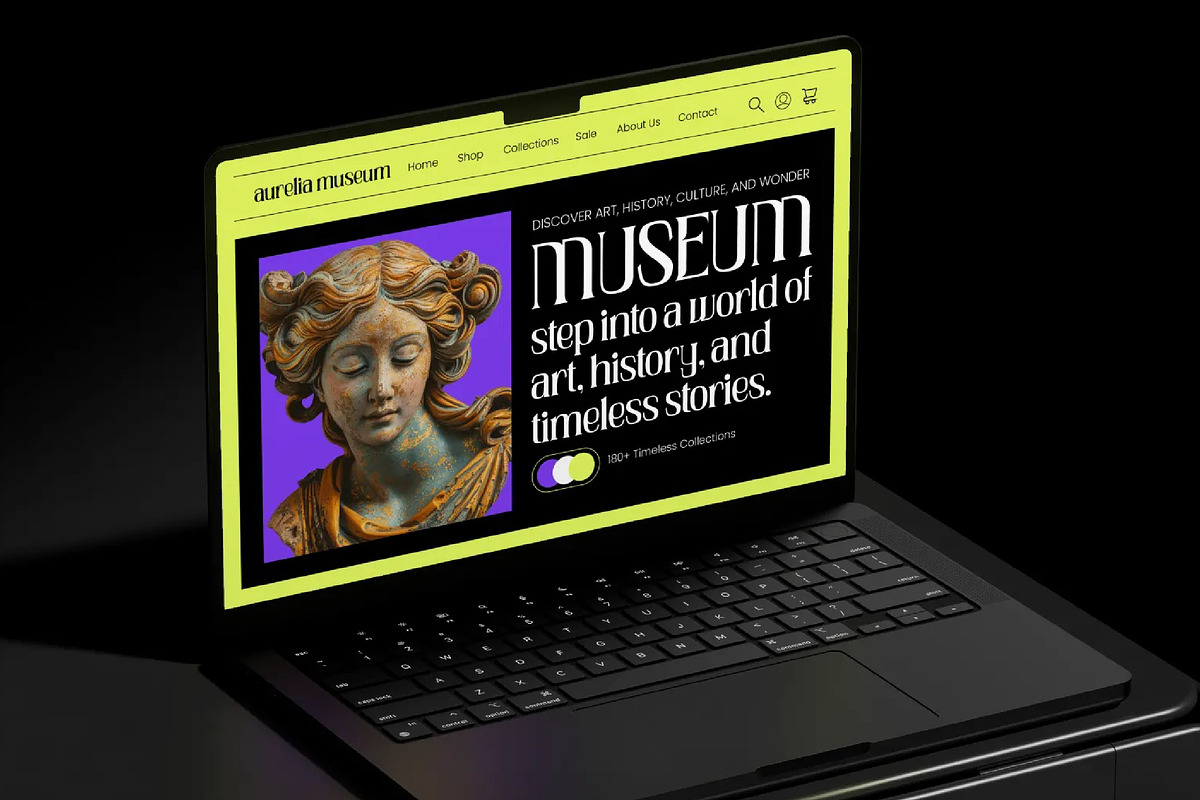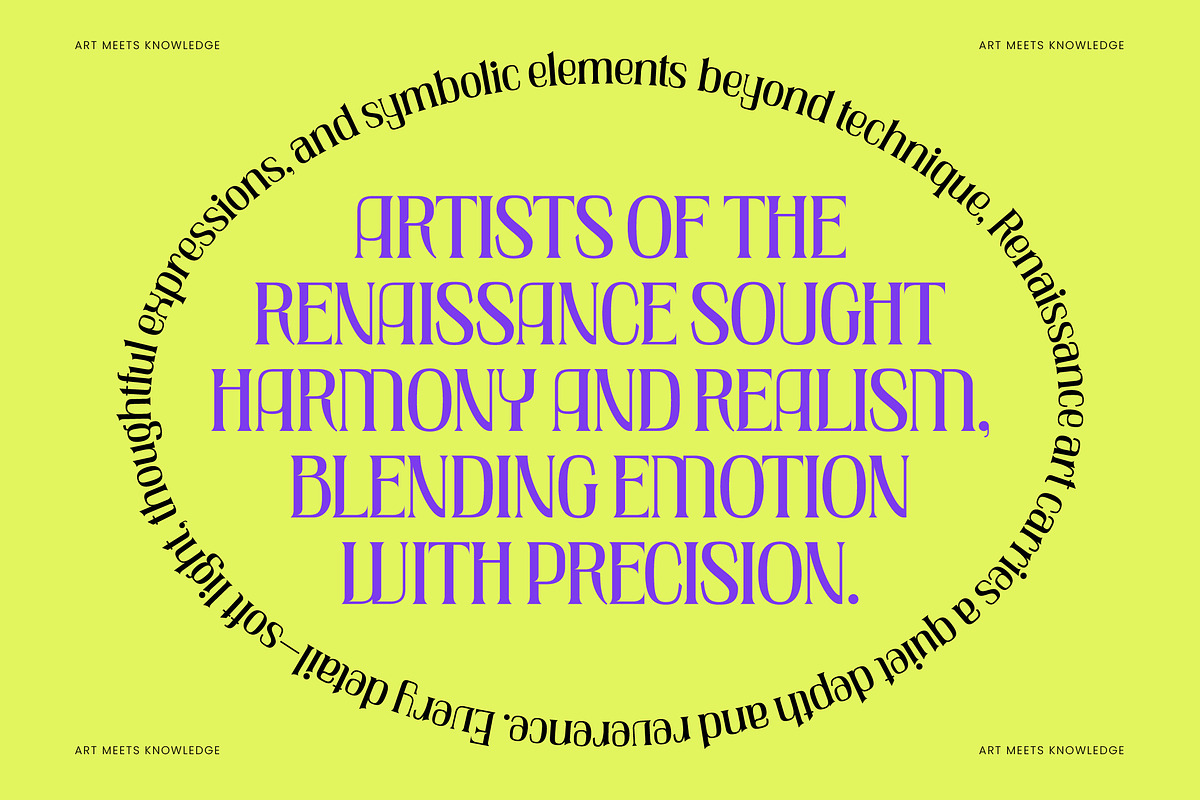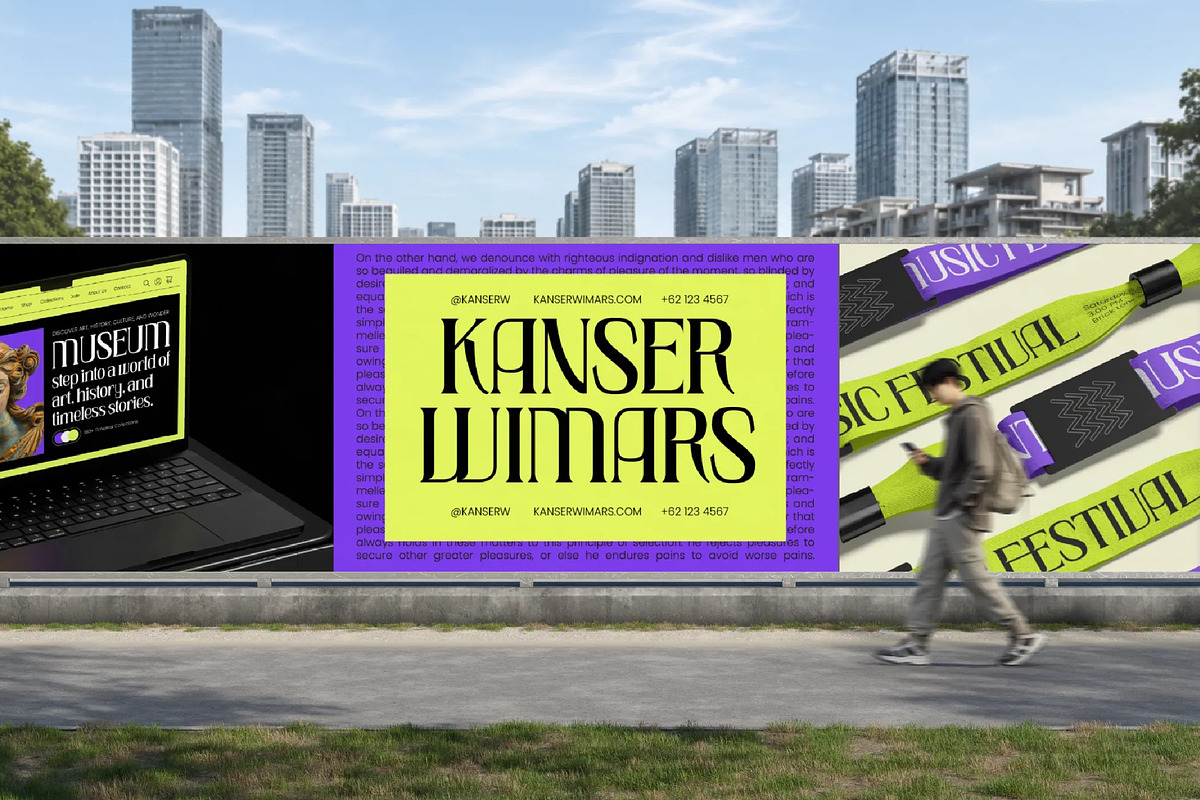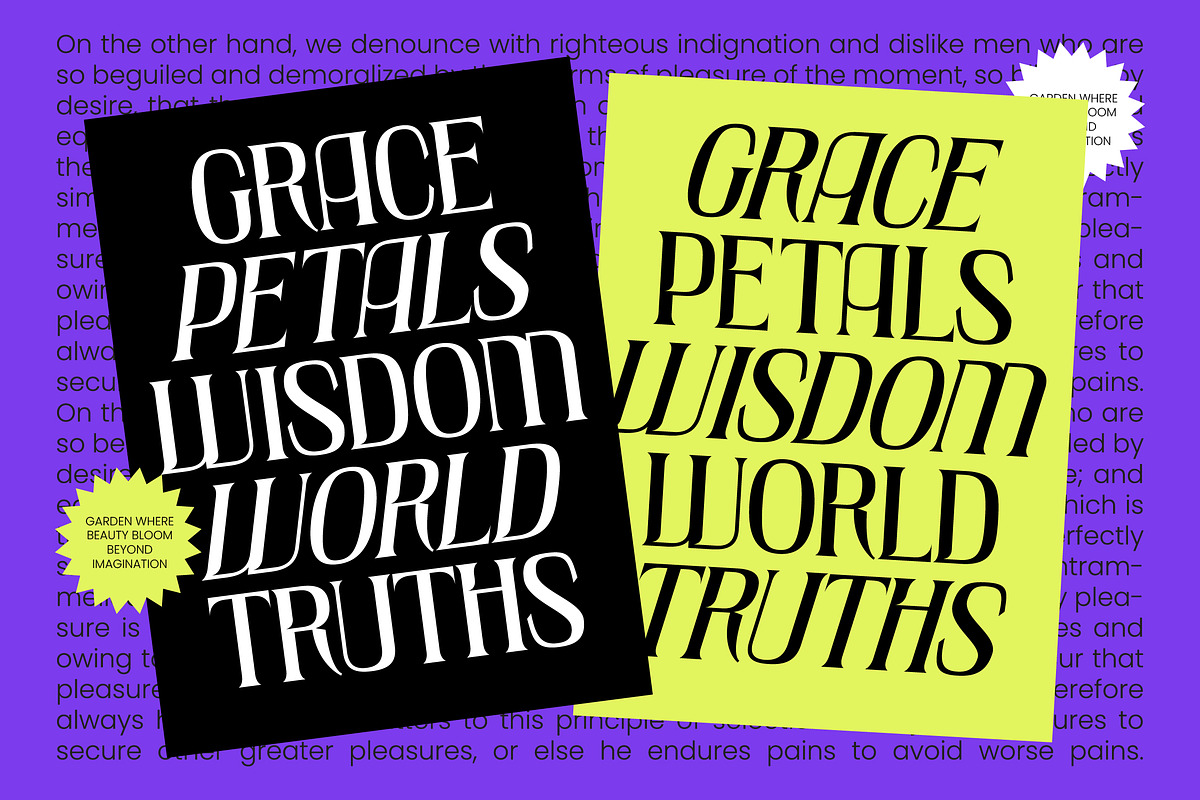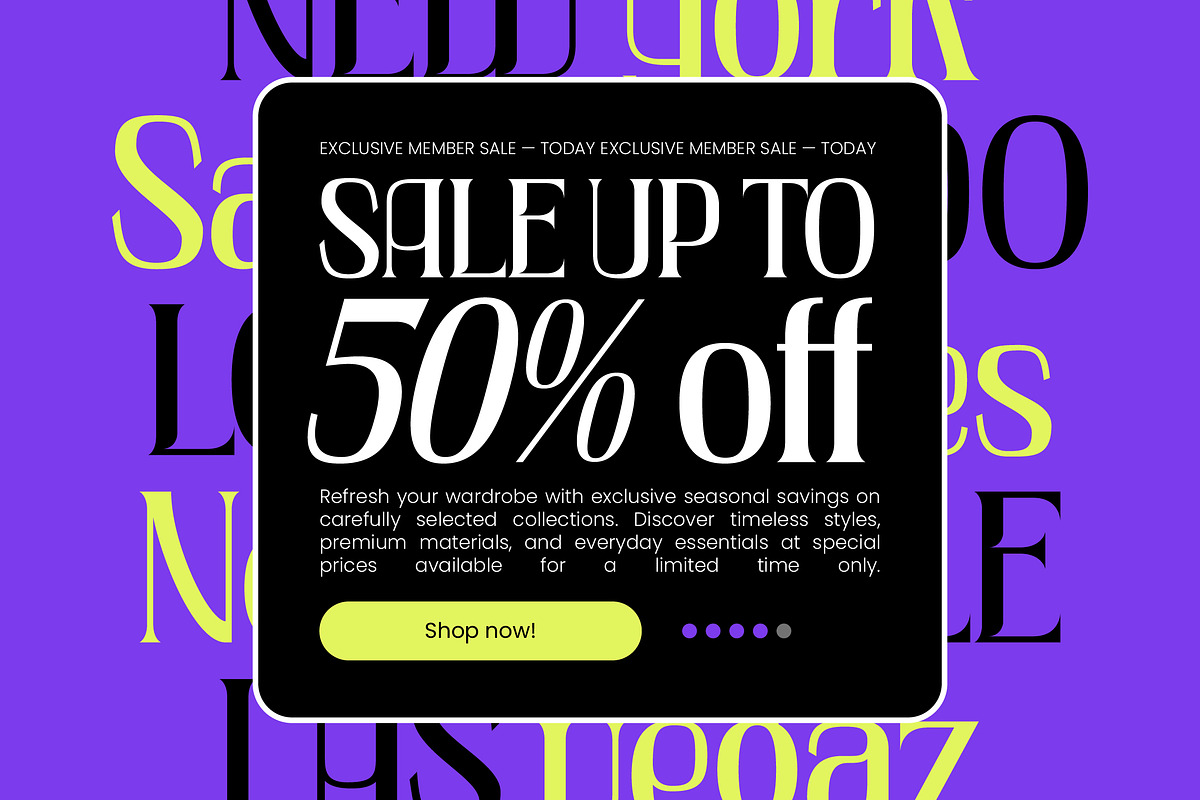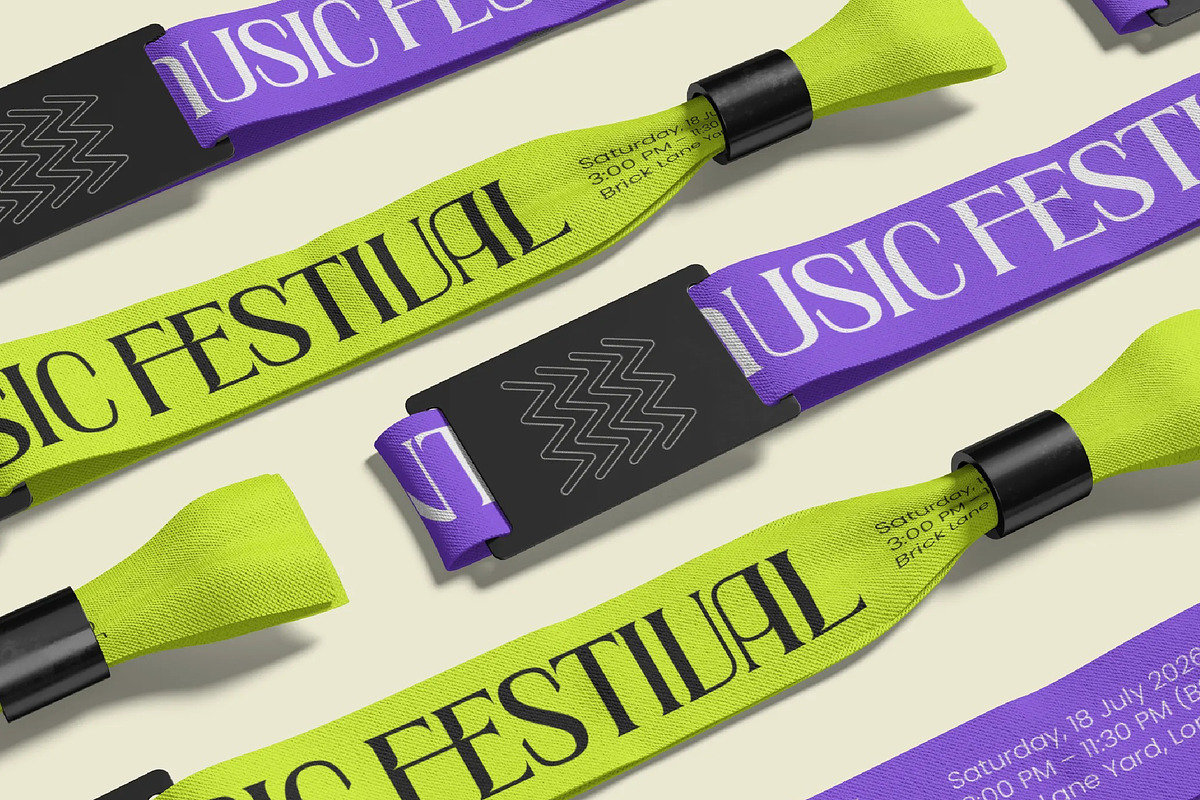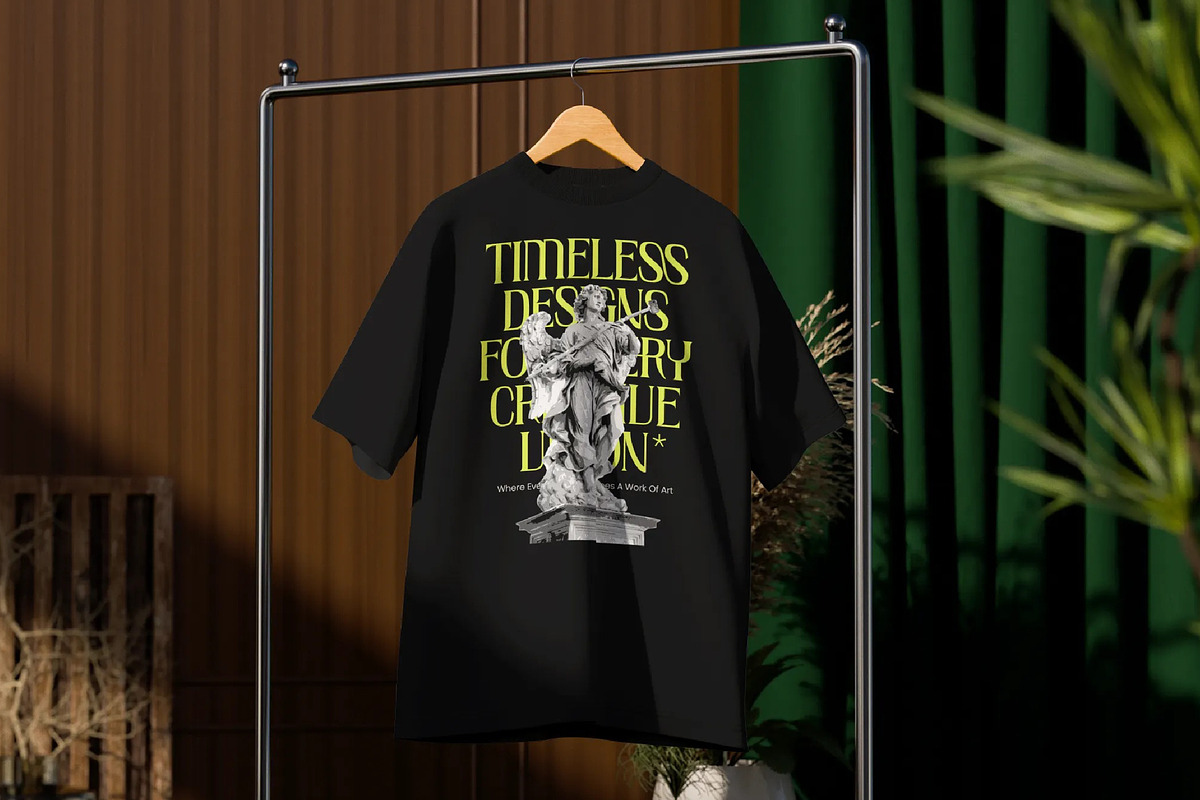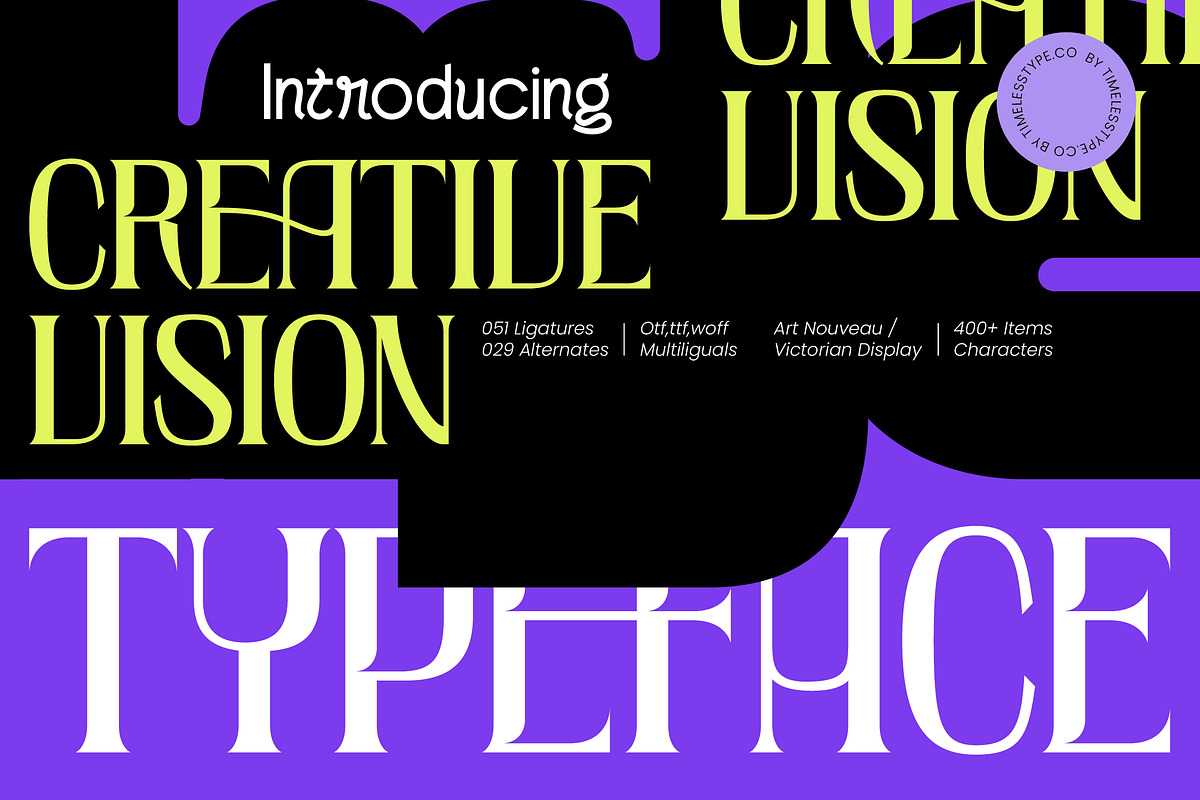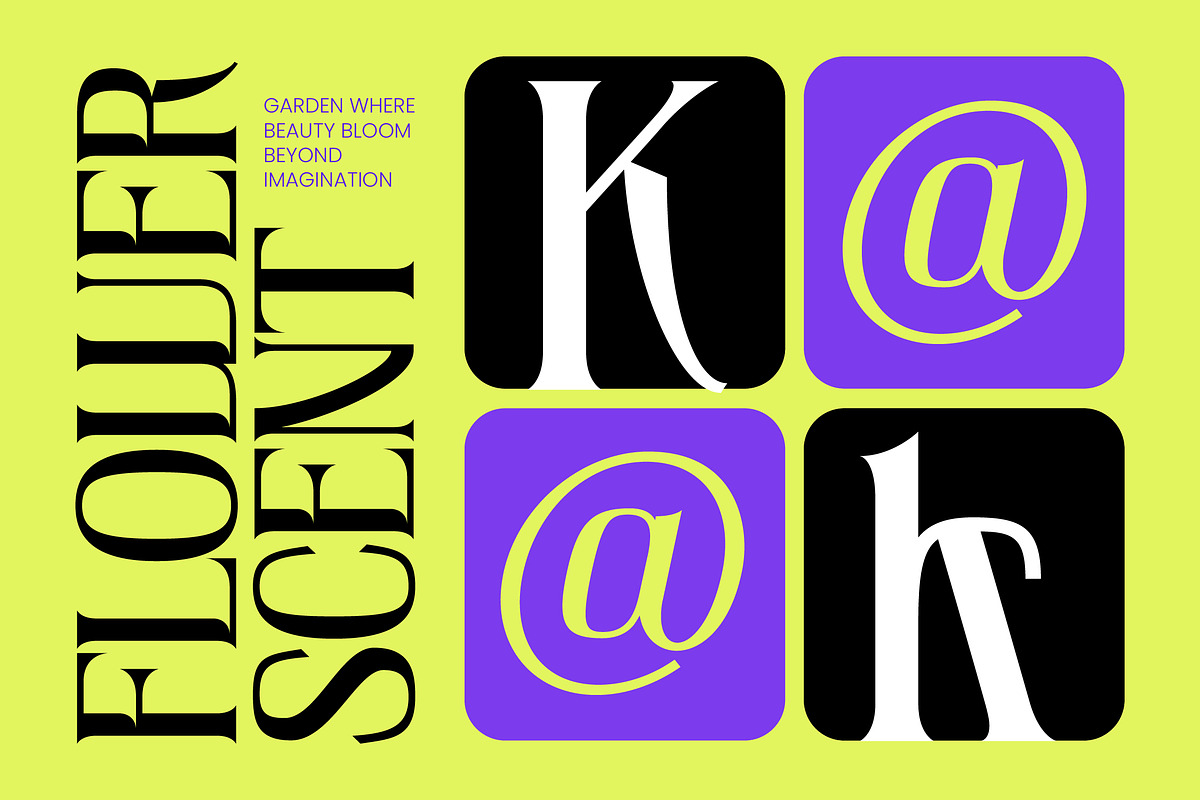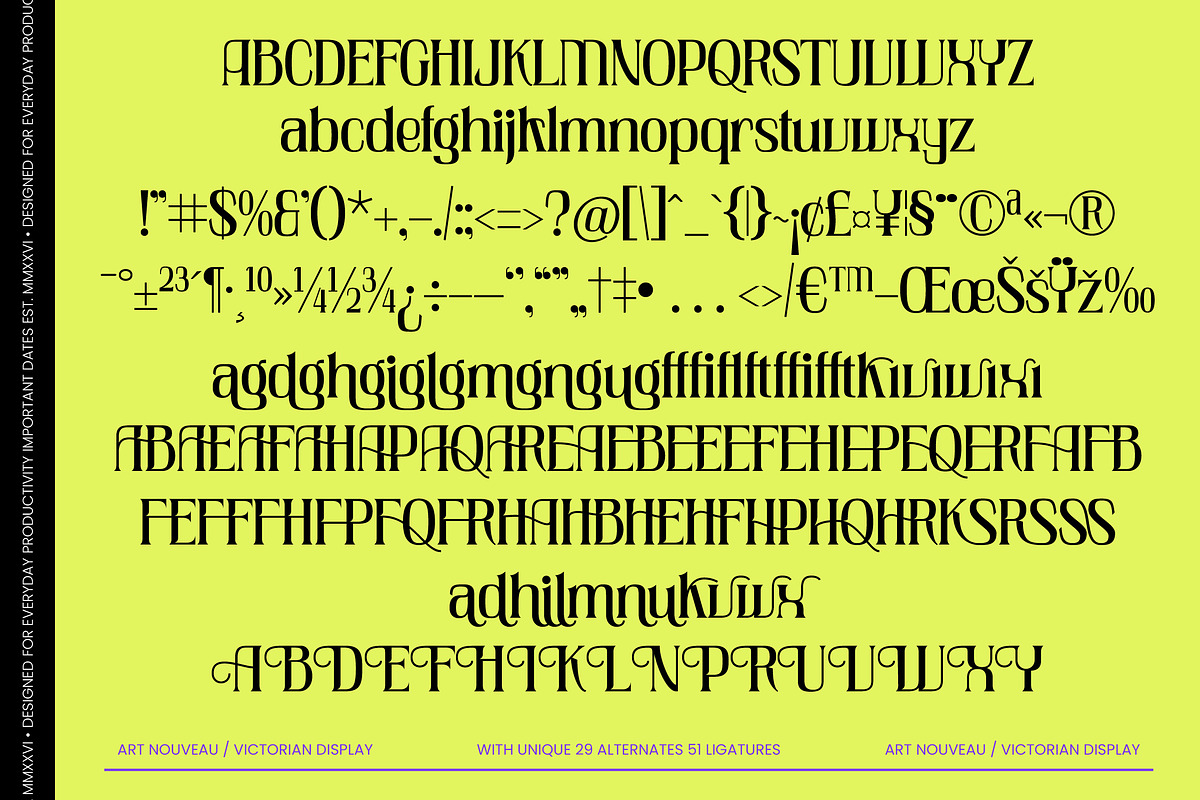
Creative Vision Victorian Display
Creative Vision – Art Nouveau & Victorian Display , Elevate your design identity with a typeface that masterfully bridges the gap between classic elegance and modern sophistication. Creative Vision – Art Nouveau & Victorian Display is a stunning display typeface that draws inspiration from the flowing lines of the Art Nouveau movement and the ornate structure of the Victorian era. Its high-contrast strokes and sharp serifs create a dramatic visual impact, ensuring your headlines command attention with a unique, premium aesthetic.
Experience unparalleled creative freedom with a comprehensive set of typographic features designed for professional impact and customization. With over 400 characters, including 51 unique ligatures and 29 stylistic alternates, Creative Vision – Art Nouveau & Victorian Display allows designers to craft truly bespoke layouts. These intricate details provide the creative flexibility needed to move beyond standard typography, offering a handcrafted feel that is both luxurious and innovative.
Global reach is effortless when your typography speaks a universal language of style and functional excellence. With its extensive multilingual support, Creative Vision – Art Nouveau & Victorian Display adapts seamlessly across global markets, making it incredibly versatile for international projects. Whether you are targeting local boutiques or global fashion houses, this typeface ensures your message remains consistent and visually striking across various linguistic landscapes.
Transform your visual storytelling by utilizing this typeface for projects that demand a high-end feel and sophisticated artistry. Creative Vision – Art Nouveau & Victorian Display is perfect for luxury branding, premium packaging, editorial design, and exclusive mastheads. It is an ideal choice for cosmetic labels, wine bottle designs, and bespoke event invitations, where establishing a strong visual hierarchy and a sense of timeless beauty is essential for commercial success.